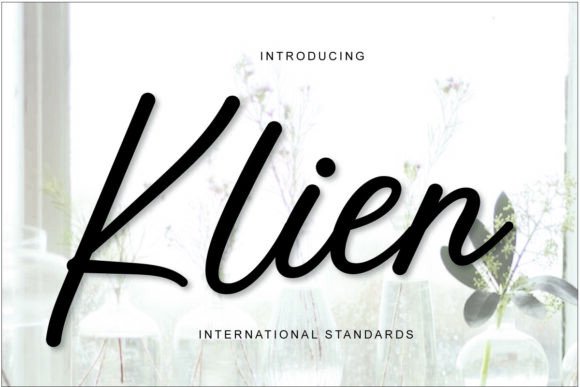
Font Choice That Matters: How Klien Elevates Campaign Design
It was a typical morning in the marketing department, and I was deep into finalizing visuals for our upcoming product launch. The team had already drafted the core message, designed the color scheme, and selected the brand assets. But one element still felt off—our text. It wasn’t wrong, but it didn’t feel right. That’s when I remembered Klien.
The Power of a Handwritten Font in Branding
Klien is more than just a font—it’s a visual language. With its elegant and flowing handwritten style, it brings a sense of personality and warmth to any design. The varied baselines and smooth lines give it a natural, organic feel, while the beautiful glyphs and stunning alternates add depth and character. It’s not just a script font; it’s a premium typeface that blends classic calligraphic influences with a contemporary edge.
As I tested Klien on our campaign mockups, I noticed how it transformed the overall tone. It felt like we were speaking directly to the audience, creating a connection that went beyond words. Whether it was used for headlines or body text, Klien maintained clarity without sacrificing style.
Using Klien in Social Media Graphics
For our Instagram content series, Klien became the star. We needed a font that could stand out in a fast-scrolling feed, yet remain readable on small screens. Klien’s clean structure and legible forms made it ideal for short headlines, callouts, and promotional tags. It worked especially well in bold weights for eye-catching titles and softer variants for supporting text.
We used it for sale announcements, product teasers, and quote graphics. The font’s personality shone through in every use, making each post feel intentional and cohesive. Even when paired with a sans serif font for contrast, Klien held its own, reinforcing our brand identity without overpowering the message.
Enhancing Visual Hierarchy with Klien
One of the biggest challenges in digital marketing is ensuring that the message is clear at a glance. Klien helped us achieve that by offering a range of weights and styles that allowed us to create a strong visual hierarchy. For example, we used the bold weight for our webinar banners and course launch headers, while the lighter variants were perfect for email banners and landing page headers.
Its ability to adapt to different contexts made it versatile. Whether we were designing YouTube thumbnails, Pinterest pins, or digital ads, Klien provided a consistent look that reinforced our brand across platforms. It also helped in building campaign consistency, which is crucial for audience recognition and trust.
Readability Across Platforms
Readability is key, especially on mobile devices where screen space is limited. Klien performed exceptionally well in this regard. Its clean lines and open forms made it easy to read even on small previews and thumbnails. We tested it against dark and light backgrounds, and it maintained clarity in both environments.
For fast-scrolling feeds, we ensured that Klien was used sparingly—primarily for headlines and key messages. This approach kept the focus on the most important information while maintaining a visually engaging layout. It was a balance between aesthetics and functionality, something that’s essential in today’s digital landscape.
Font Pairing and Design Flexibility
Klien isn’t a one-size-fits-all solution, but it pairs beautifully with other fonts. We often used it alongside a clean sans serif font for contrast and balance. This combination worked well for both editorial design and web design projects. For instance, in our online shop campaign, Klien added a touch of elegance to product titles, while the sans serif font handled the rest of the copy seamlessly.
Its versatility also extended to branding. We used it for logo-style text and decorative titles, giving our brand a unique and memorable presence. It was especially effective in branded content series where we wanted to maintain a consistent visual identity across multiple assets.
Key Considerations Before Using Klien
Before using Klien in any campaign, there are a few things to keep in mind. First, check the included styles, alternates, ligatures, and weights to ensure you have the full range of options. Next, verify the file formats and multilingual support to accommodate your target audience. Finally, make sure you understand the commercial font licensing terms, as they can vary depending on how you plan to use the font in ads, templates, or merchandise.
These considerations helped us avoid potential issues and ensured that Klien was used effectively in all our campaigns. It was a reminder that even the best font needs to be handled with care and strategy.
Final Thoughts on Klien’s Impact
From the first test to the final campaign rollout, Klien proved to be a valuable asset in our design workflow. It brought a level of sophistication and personality that elevated our message and strengthened our brand. Whether we were creating social media posts, digital ads, or promotional graphics, Klien consistently delivered on its promise as a premium, versatile, and stylish typeface.
In a world where first impressions matter, having the right font can make all the difference. Klien isn’t just a font—it’s a tool that helps marketers and creators communicate more clearly, connect more deeply, and build more meaningful brand experiences.